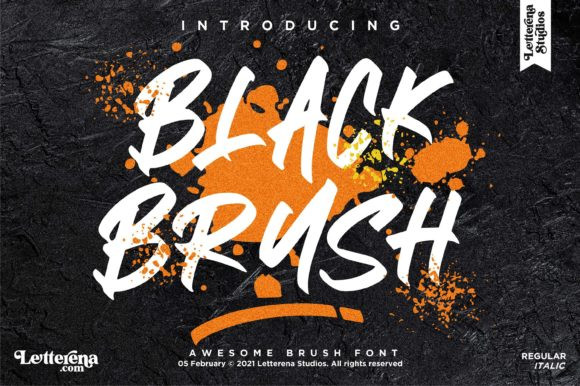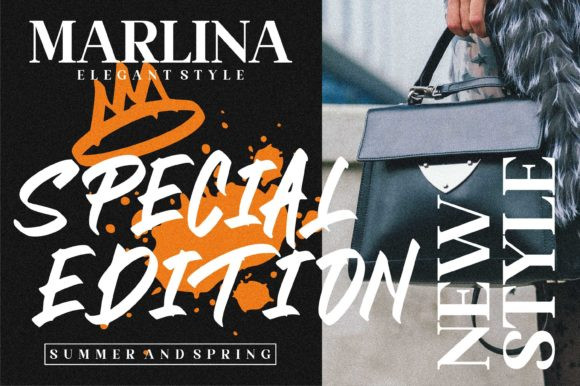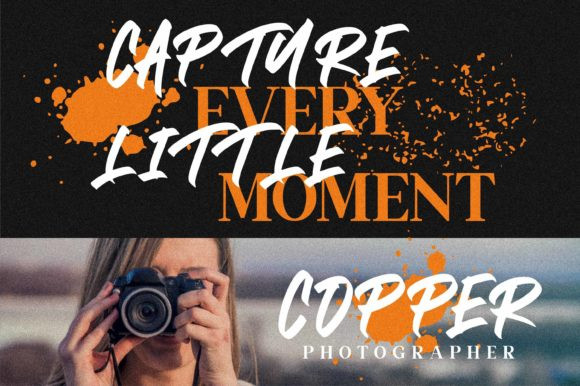
Black Brush Font
Black Brush is a bold, brushed display font. Urban styled and trendy, this font will make the ideal choice for a wide range of casual or informal designs.